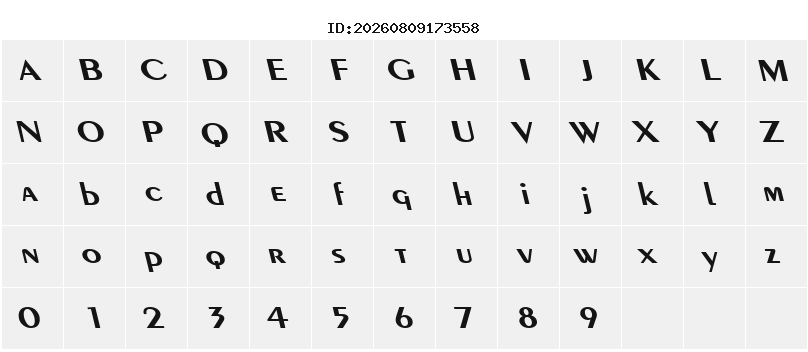
• Font Name: Pare Wide Reverse
• Font Style: BoldItalic
• Full Font Name: Pare Wide Reverse BoldItalic
• PostScript Name: PareWideReverseBoldItalic
About Pare Wide Reverse.ttf
Pare Wide Reverse.ttf is a modern, elegant sans-serif font designed for ultimate readability and visual harmony. Perfect for branding, headlines, web design, and print materials.